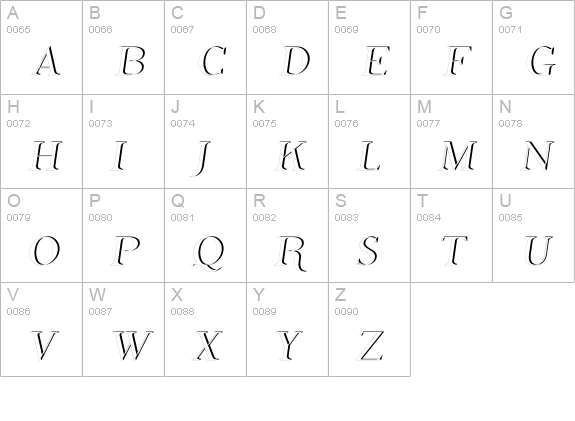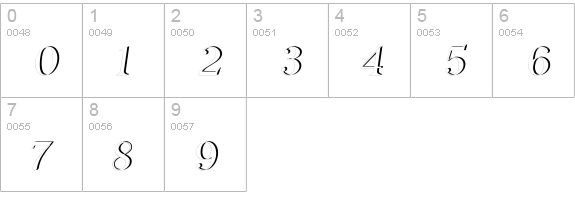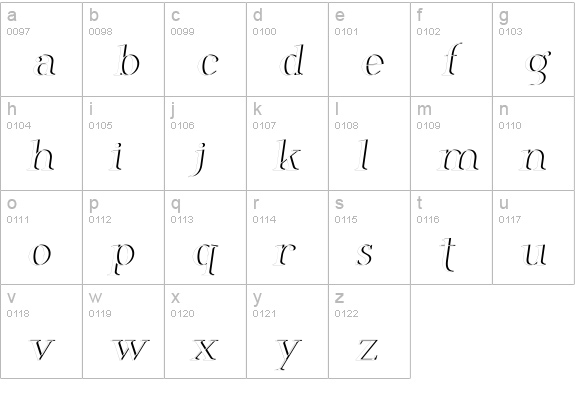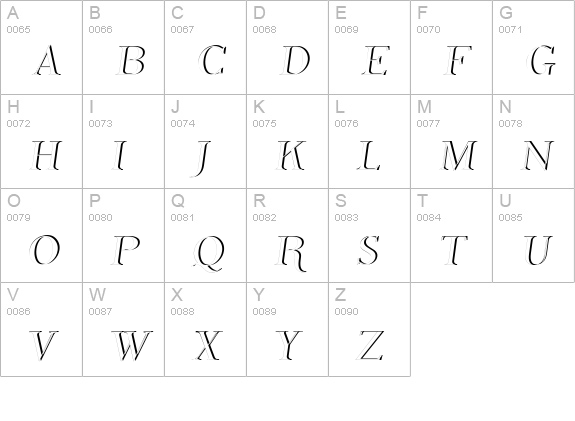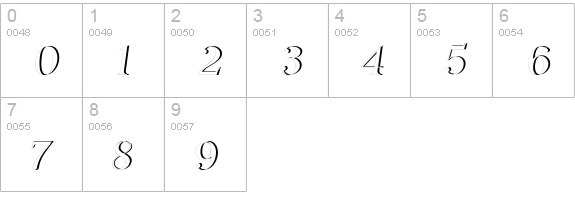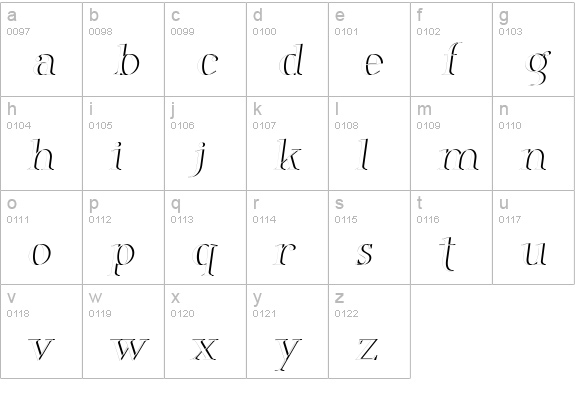
Phosphorus Dihydride Font Details
Introducing Phosphorus Dihydride font, a sleek and modern typeface that exudes sophistication and elegance. This font is perfect for a wide range of design projects, from branding to editorial design. With its clean lines and sharp angles, Phosphorus Dihydride font adds a touch of contemporary flair to any project. What sets Phosphorus Dihydride font apart is its versatility. Whether you're looking to create a bold headline or a subtle subheading, this font has you covered. Its unique design allows it to stand out while still maintaining a sense of understated elegance. Best of all, Phosphorus Dihydride font is completely free to download at FontsMarket.com. This means that you can start using this stylish typeface in your projects right away, without having to worry about any additional costs. So why wait? Download Phosphorus Dihydride font today and take your designs to the next level!